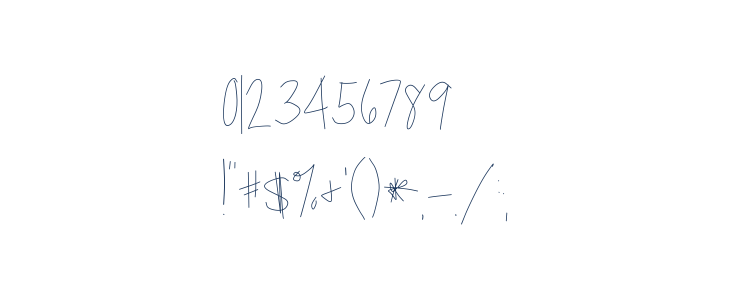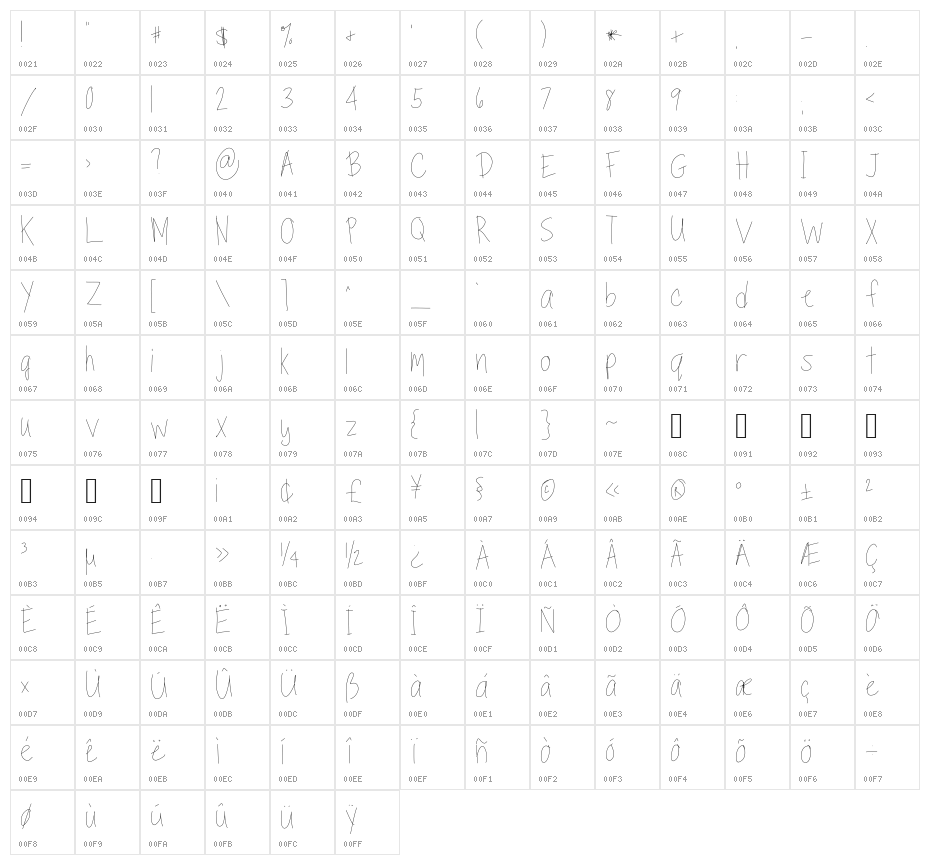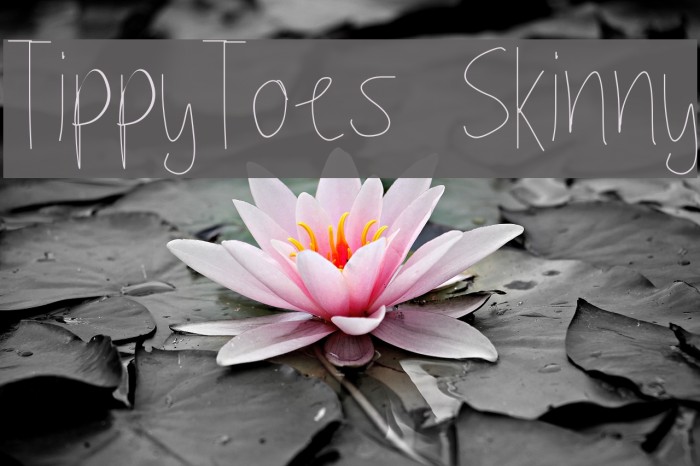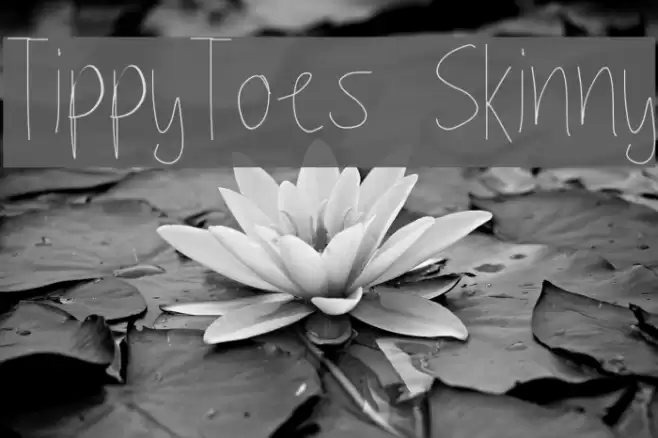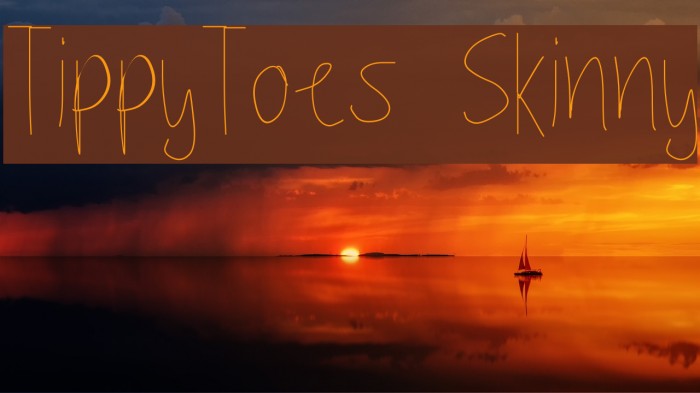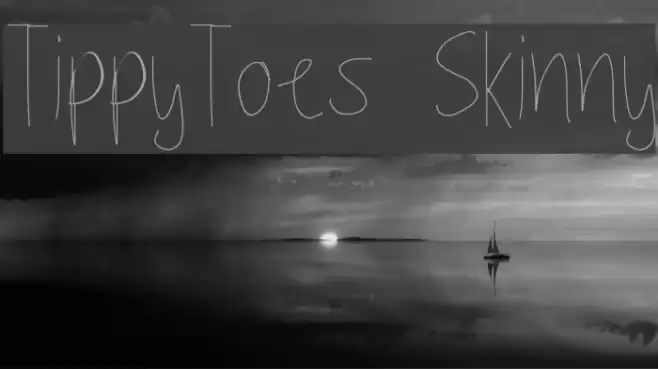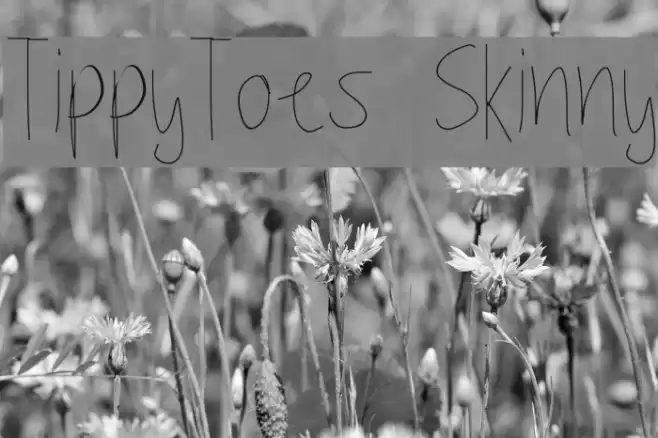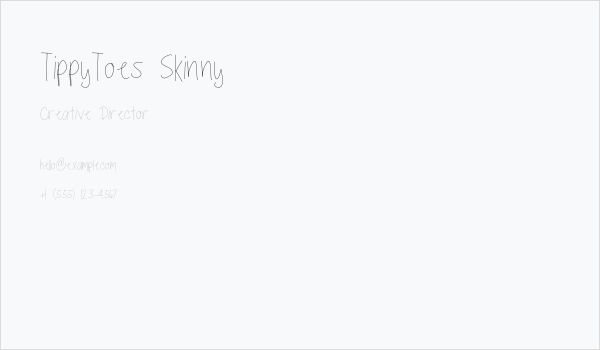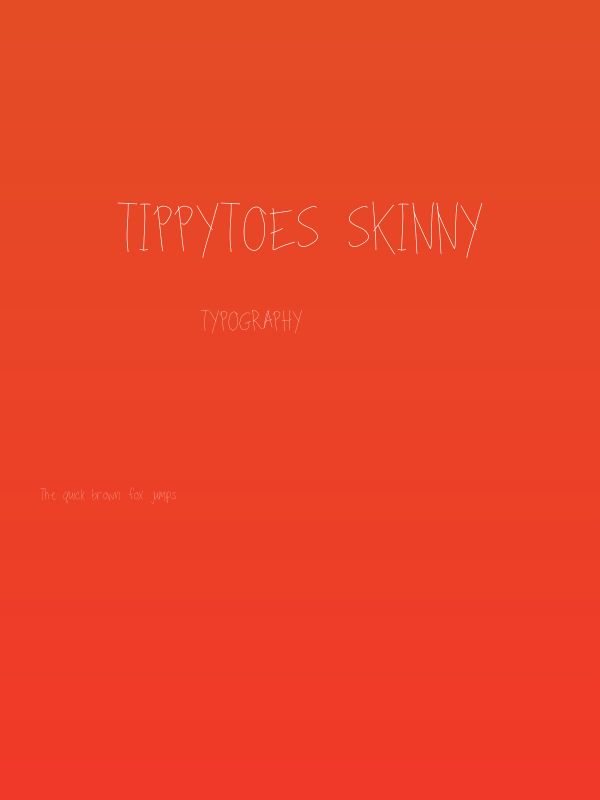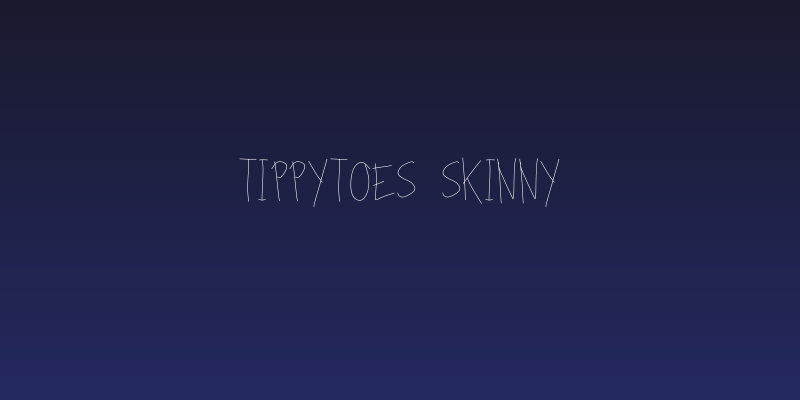
TippyToes Skinny Font
TippyToes Skinny Description
This font features a playful and whimsical handwritten style, characterized by its thin, elongated strokes and slightly irregular letterforms. The overall appearance is casual and informal, with a touch of elegance due to its slender design. The uppercase and lowercase letters maintain a consistent height, while the numbers and special characters complement the alphabet with similar line weights and style. The font's unique charm lies in its imperfect lines and the organic flow of each character, making it ideal for projects that require a personal and approachable touch.